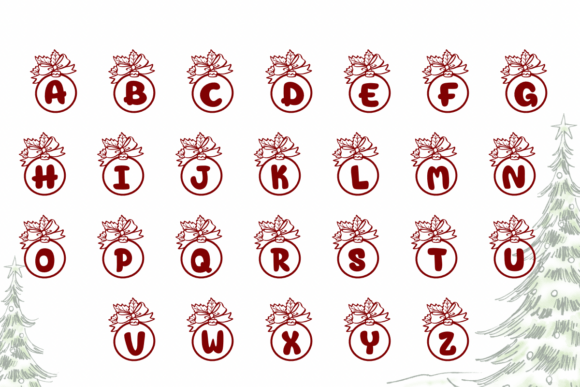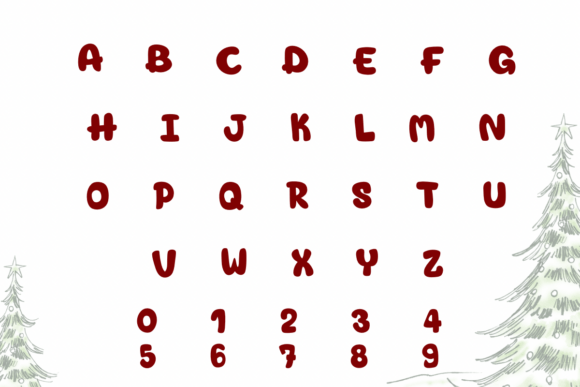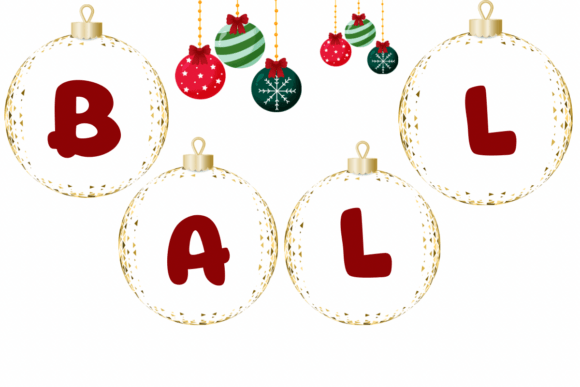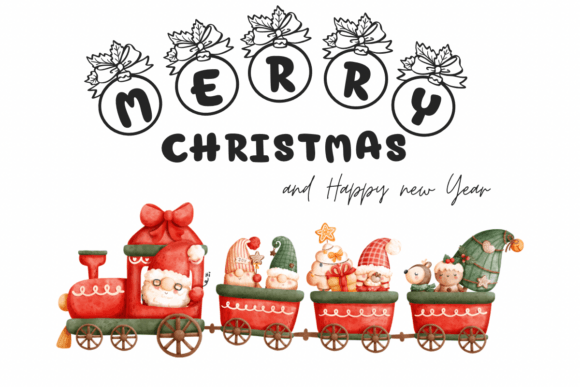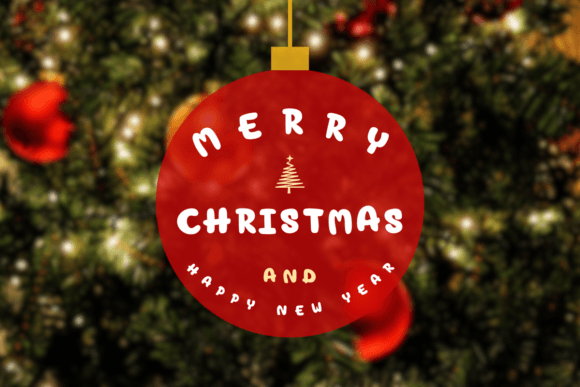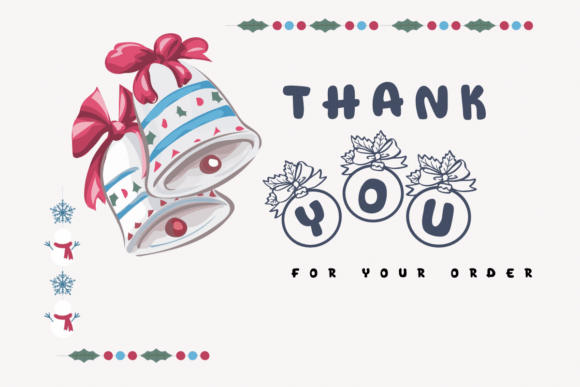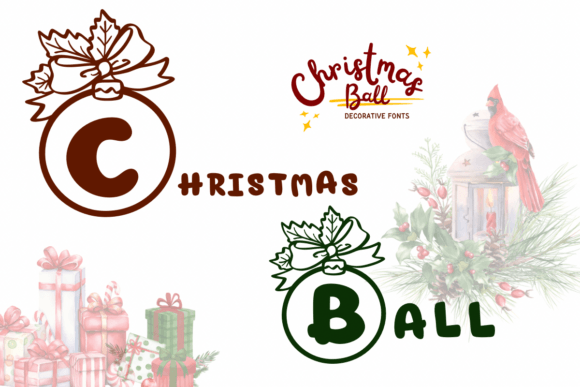
Introducing Christmas Ball Font: The Perfect Decorative Font for Your Holiday Designs
Are you looking for a festive and fun font to add some holiday cheer to your designs? Look no further than Christmas Ball Font! This decorative font is perfect for creating eye-catching and engaging designs for the holiday season. In this article, we’ll explore the features and uses of Christmas Ball Font, and show you how to make the most of this versatile and fun font.
What is Christmas Ball Font?
Christmas Ball Font is a decorative font that is designed to capture the spirit of the holiday season. With its playful and festive design, this font is perfect for creating a wide range of holiday-themed designs, from greeting cards and invitations to banners and social media posts.
Features of Christmas Ball Font
Christmas Ball Font has a number of features that make it a great choice for your holiday designs. Some of the key features include:
- Playful and festive design: Christmas Ball Font has a fun and playful design that is perfect for capturing the spirit of the holiday season.
- Easy to read: Despite its decorative design, Christmas Ball Font is easy to read and can be used for a wide range of applications, from body text to headings.
- Versatile: Christmas Ball Font can be used for a wide range of designs, from greeting cards and invitations to banners and social media posts.
Uses for Christmas Ball Font
Christmas Ball Font is a versatile font that can be used for a wide range of designs. Here are some ideas for using Christmas Ball Font:
- Holiday greeting cards: Use Christmas Ball Font to create festive and fun holiday greeting cards for friends and family.
- Invitations: Create festive and fun invitations for holiday parties and events using Christmas Ball Font.
- Banners: Use Christmas Ball Font to create eye-catching banners for holiday displays and decorations.
- Social media posts: Add some holiday cheer to your social media posts with Christmas Ball Font.
- Mugs and water bottles: Use Christmas Ball Font to create fun and festive designs for mugs and water bottles.
- Shirts and stationery: Create fun and festive designs for shirts and stationery using Christmas Ball Font.
Tips for Using Christmas Ball Font
Here are some tips for getting the most out of Christmas Ball Font:
- Use it sparingly: While Christmas Ball Font is fun and festive, it can be overwhelming if used too much. Use it sparingly to add a touch of holiday cheer to your designs.
- Pair it with other fonts: Christmas Ball Font pairs well with other fonts, such as serif and sans-serif fonts. Experiment with different font combinations to find the perfect look for your design.
- Experiment with colors: Christmas Ball Font looks great in a variety of colors, from traditional holiday colors like red and green to more modern colors like blue and purple.
Christmas Ball Font is a fun and versatile font that is perfect for adding some holiday cheer to your designs. With its playful and festive design, this font is great for creating a wide range of holiday-themed designs, from greeting cards and invitations to banners and social media posts. Whether you’re a designer or a crafter, Christmas Ball Font is a great choice for your holiday designs.